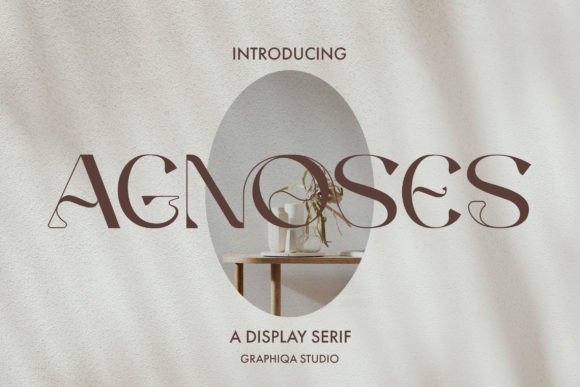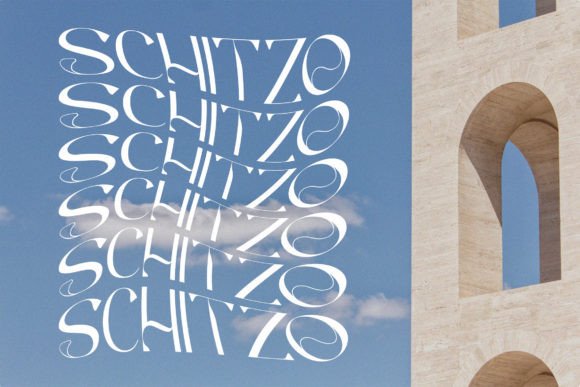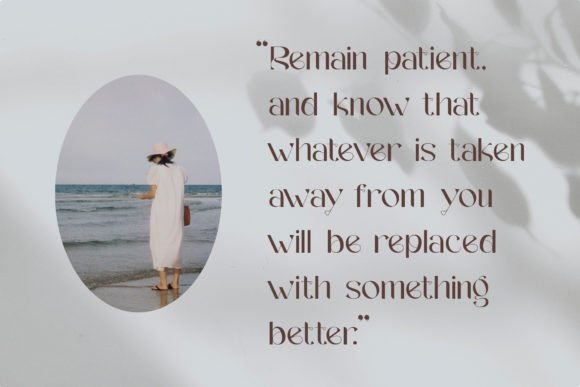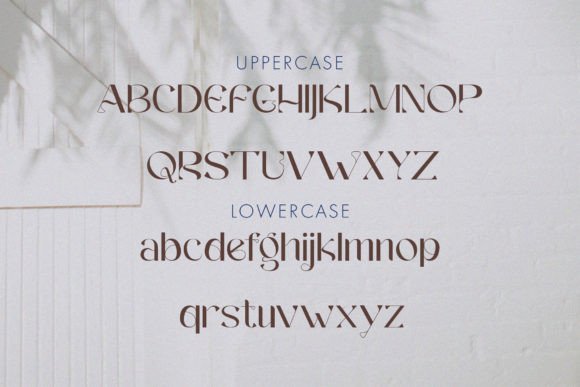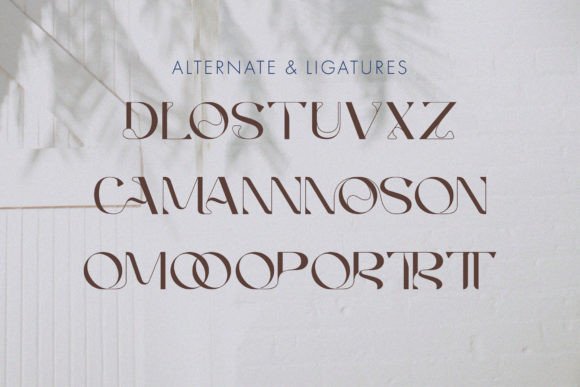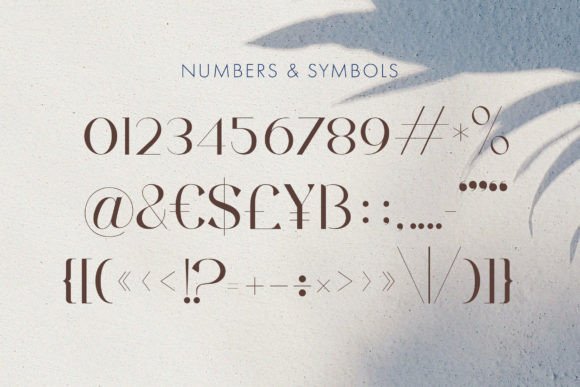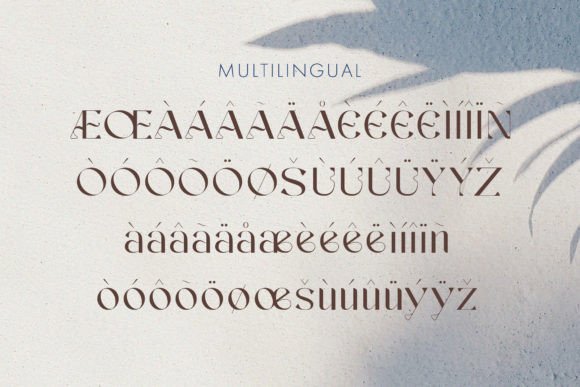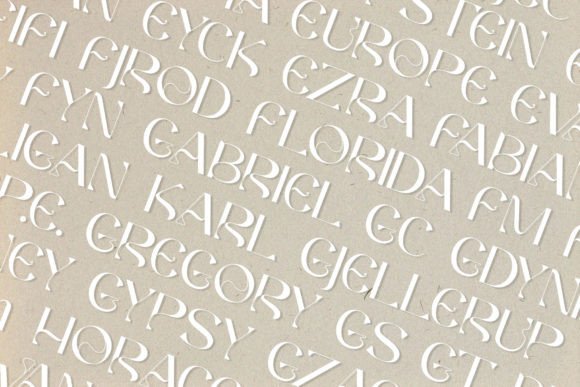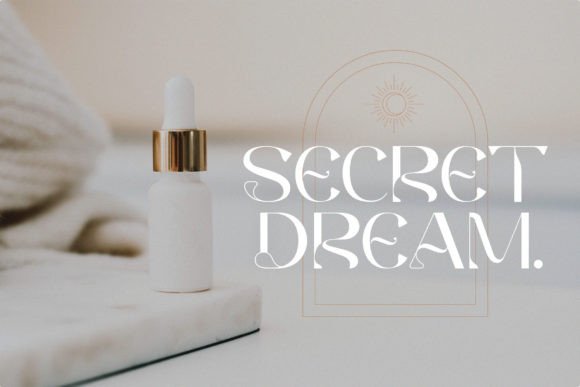
Agnoses
Agnoses: A Modern and Fancy Slab Serif Font
Agnoses is a modern and fancy slab serif font that brings luxury appeal to various creative applications. This versatile typeface is perfect for signature designs, branding, and advertising projects.
Key Features of Agnoses
• Modern Design: Offers contemporary sophisticated letterforms.
• Fancy Style: Brings luxury character to designs.
• Versatile Appeal: Perfect for various upscale applications.
• Brand-Friendly: Ideal for luxury and fashion contexts.
Best Uses for Agnoses
Thanks to its versatile characteristics, Agnoses works especially well for:
When using Agnoses in your designs, keep these tips in mind:
• Try it for headlines or display text to showcase its fancy style.
• Use its modern character for luxury branding.
• Let its versatility enhance upscale projects.
• Take advantage of its sophistication for fashion applications.
To sum up, Agnoses is an excellent choice for designers seeking a modern and fancy slab serif font. Its versatility makes it perfect for various luxury-oriented projects. Whether you’re creating signatures, designing logos, or developing fashion branding, Agnoses offers the perfect blend of contemporary style and sophisticated appeal.
Furthermore, Agnoses’s distinctive design allows it to shine in contexts where both modernity and luxury are key. From badges to advertising materials, this font can elevate your projects with its refined style. Also, its fancy yet readable appearance works particularly well in designs that aim to make a sophisticated impact.
In conclusion, Agnoses truly captures the essence of modern luxury in slab serif typography. Its ability to enhance various applications shows how well it can serve creative needs. Therefore, for those wanting to add a touch of fancy sophistication to their work, Agnoses can transform any design with its distinctive style. Ultimately, it’s perfect for designers aiming to make an elegant, modern impact across luxury-oriented projects.